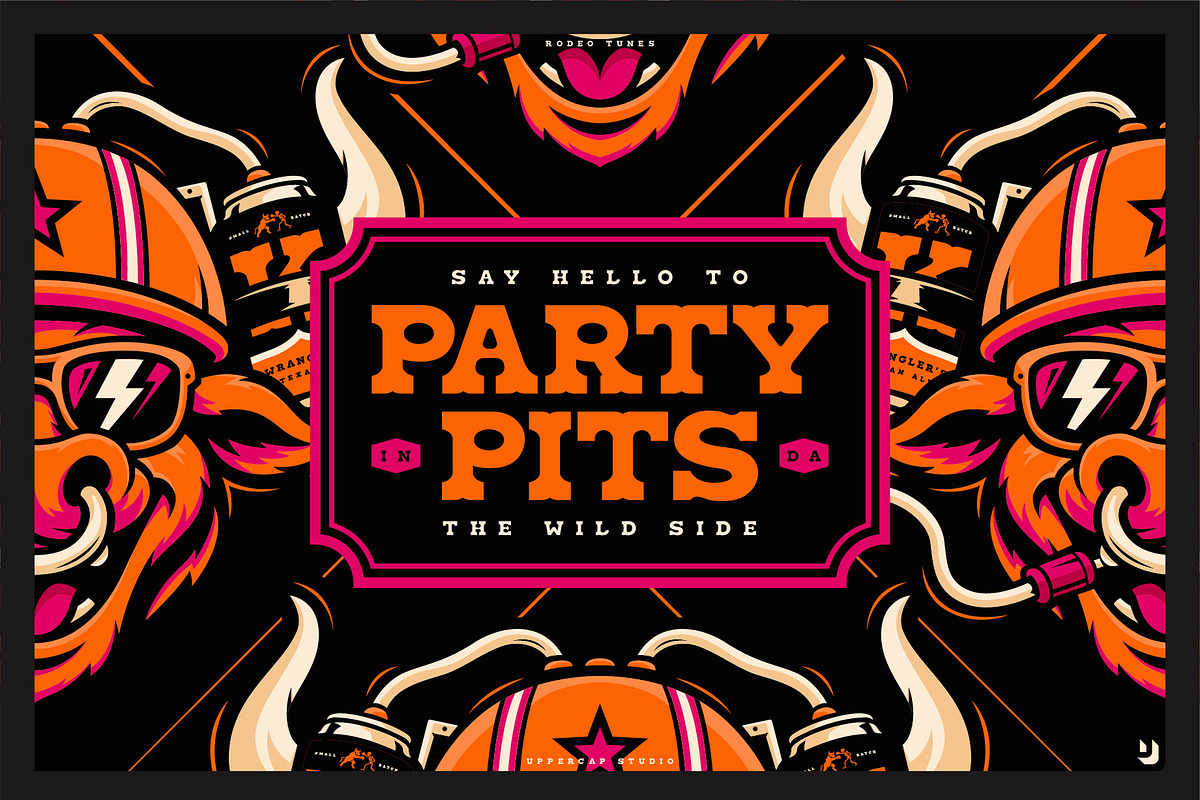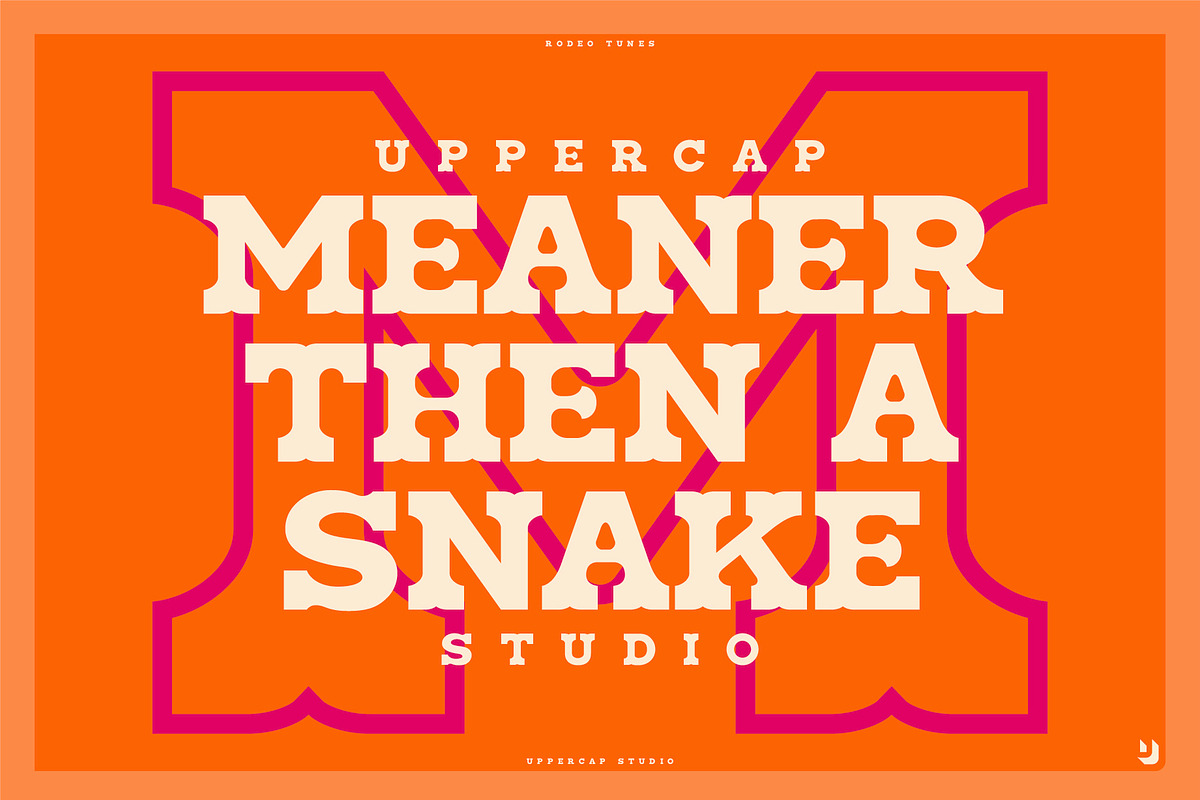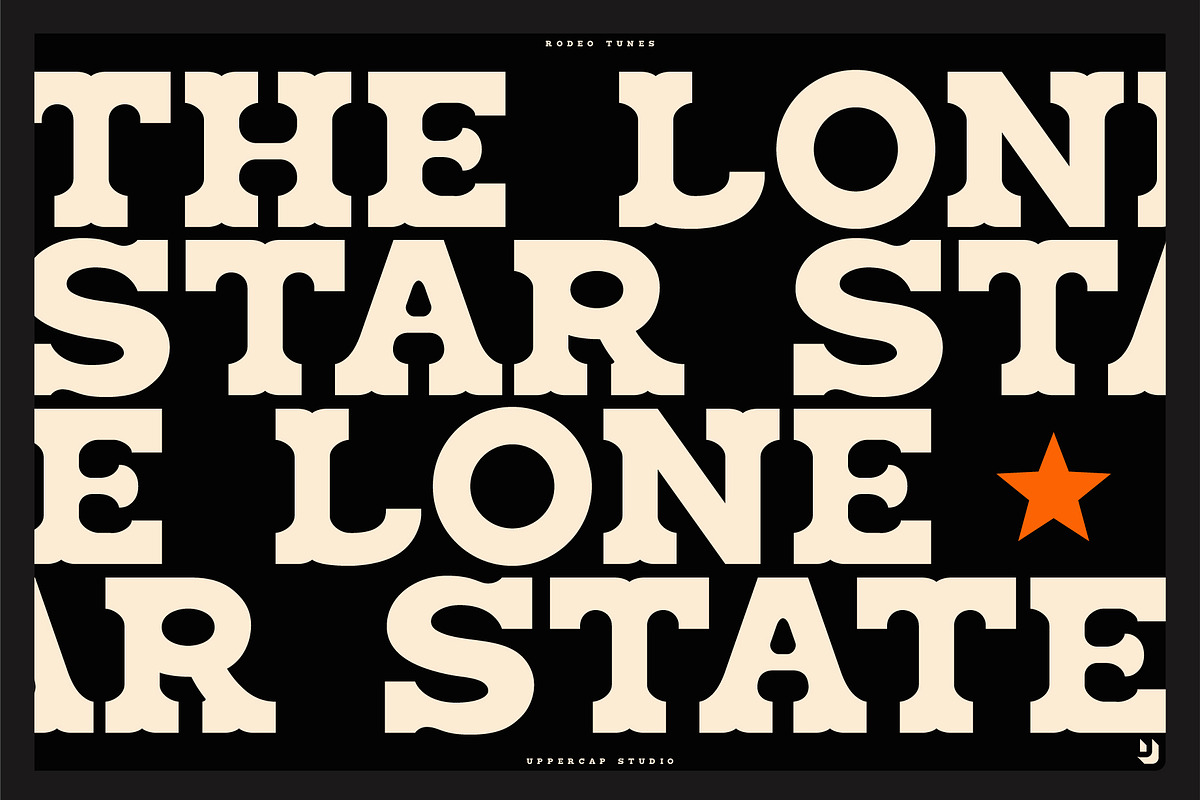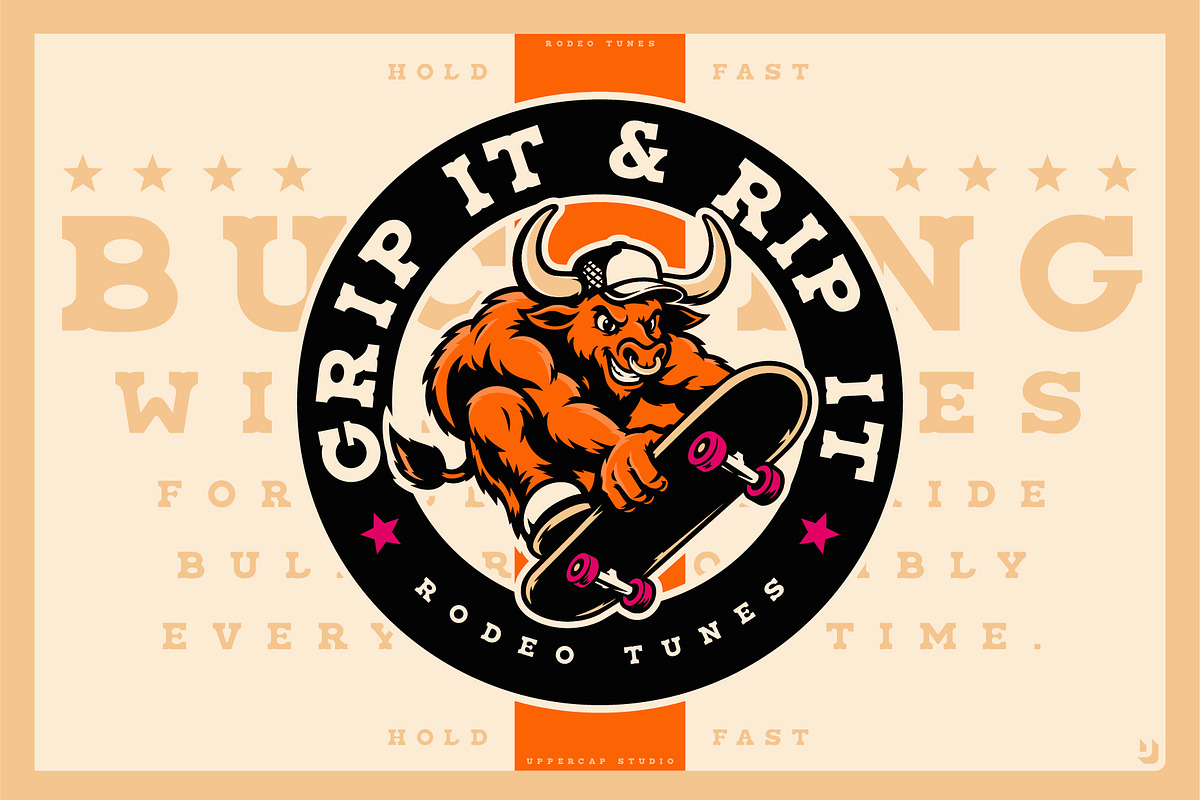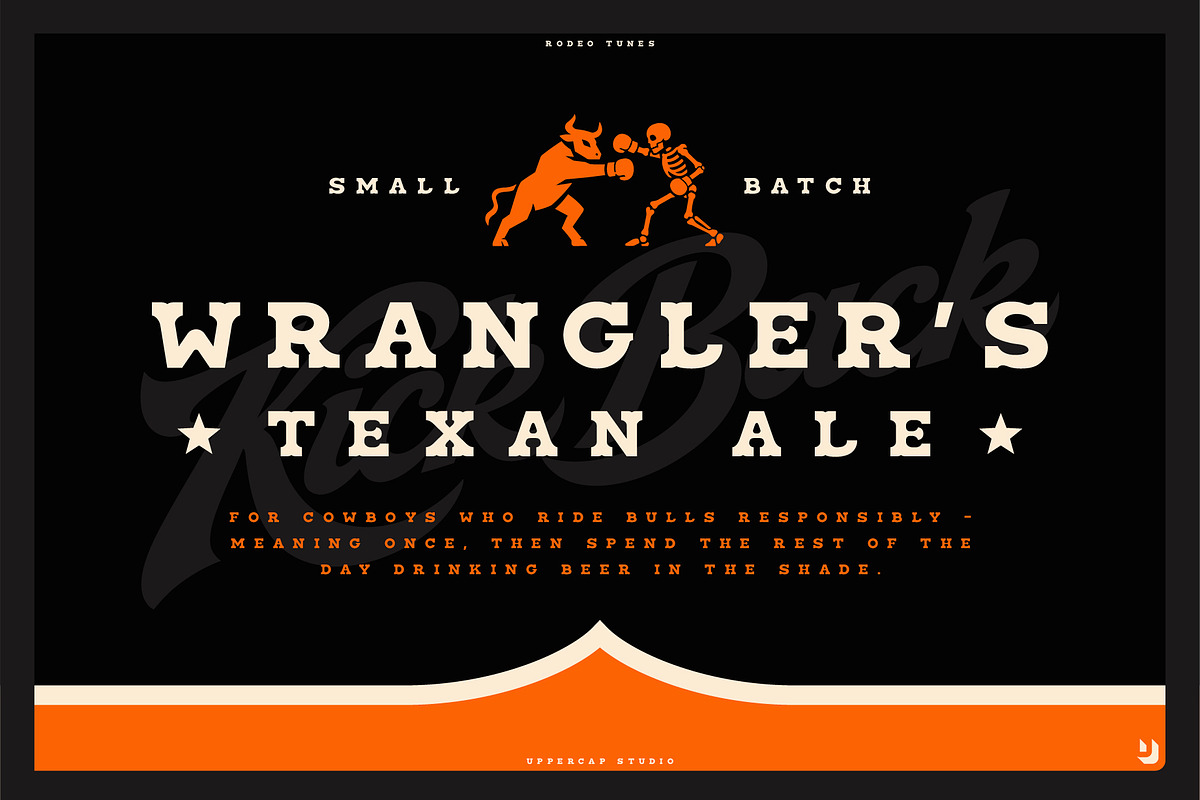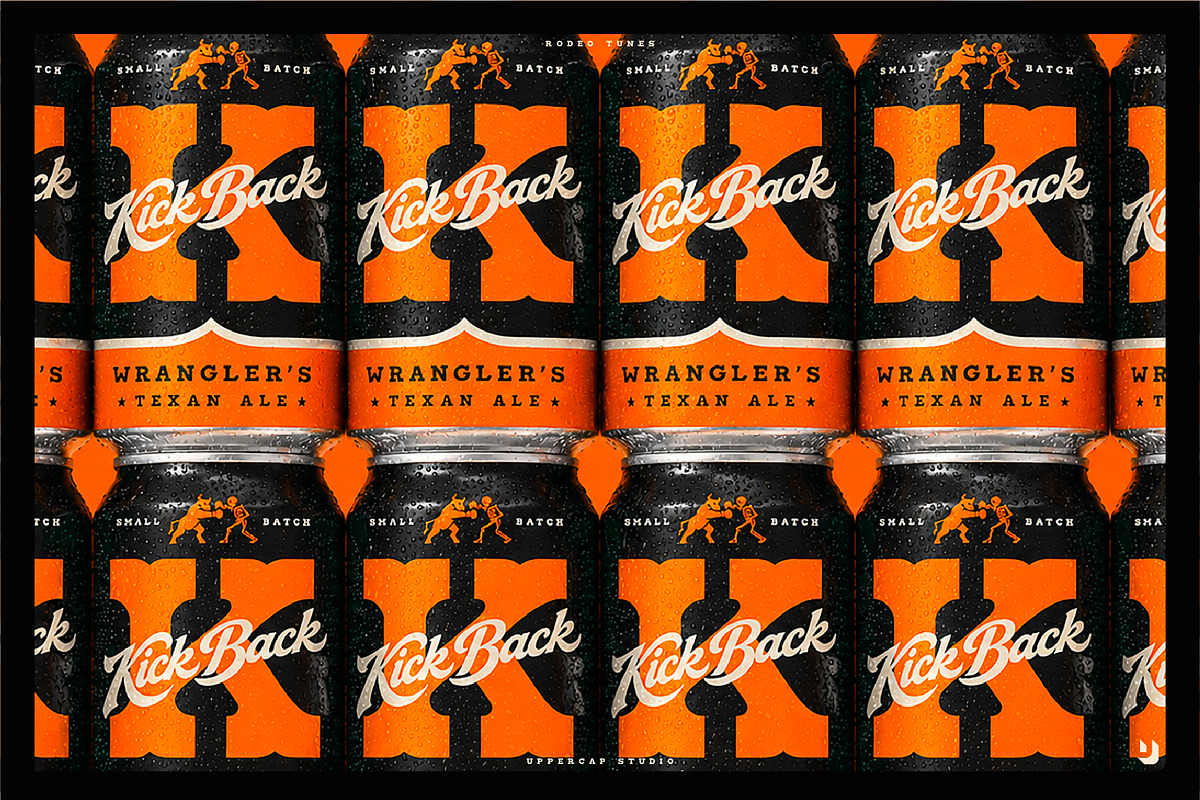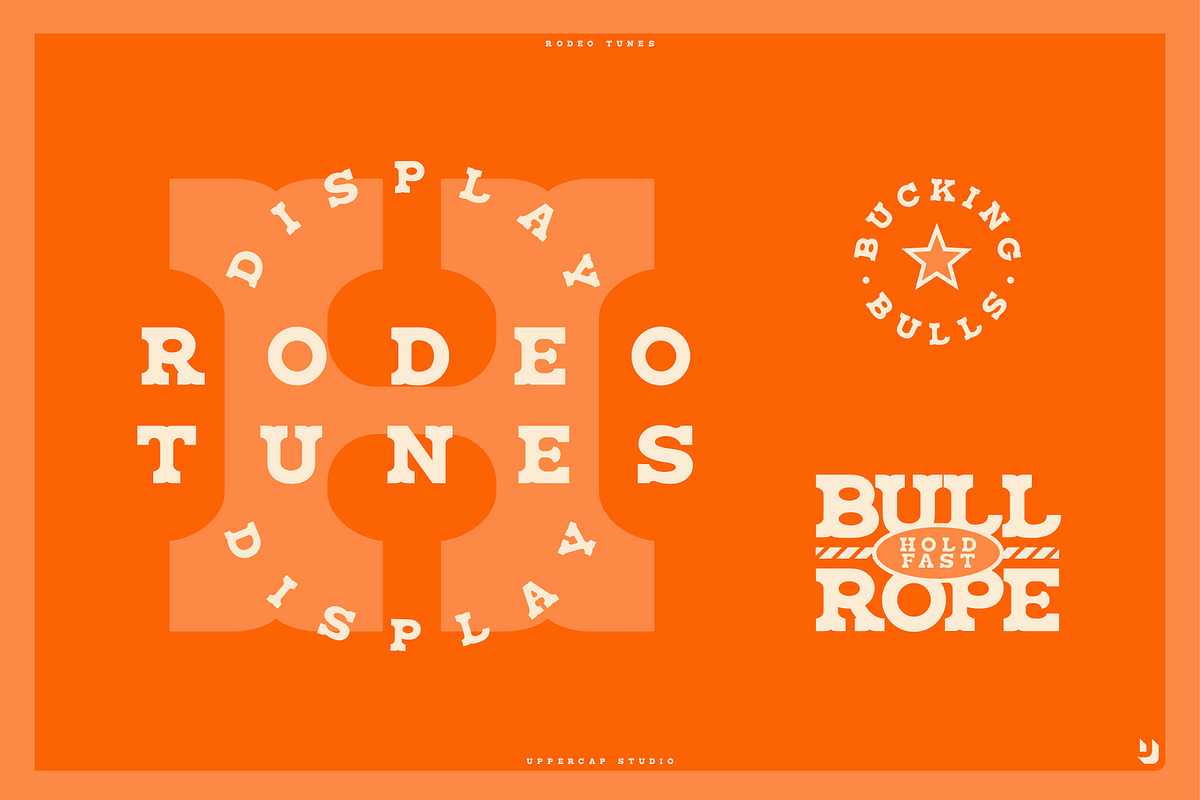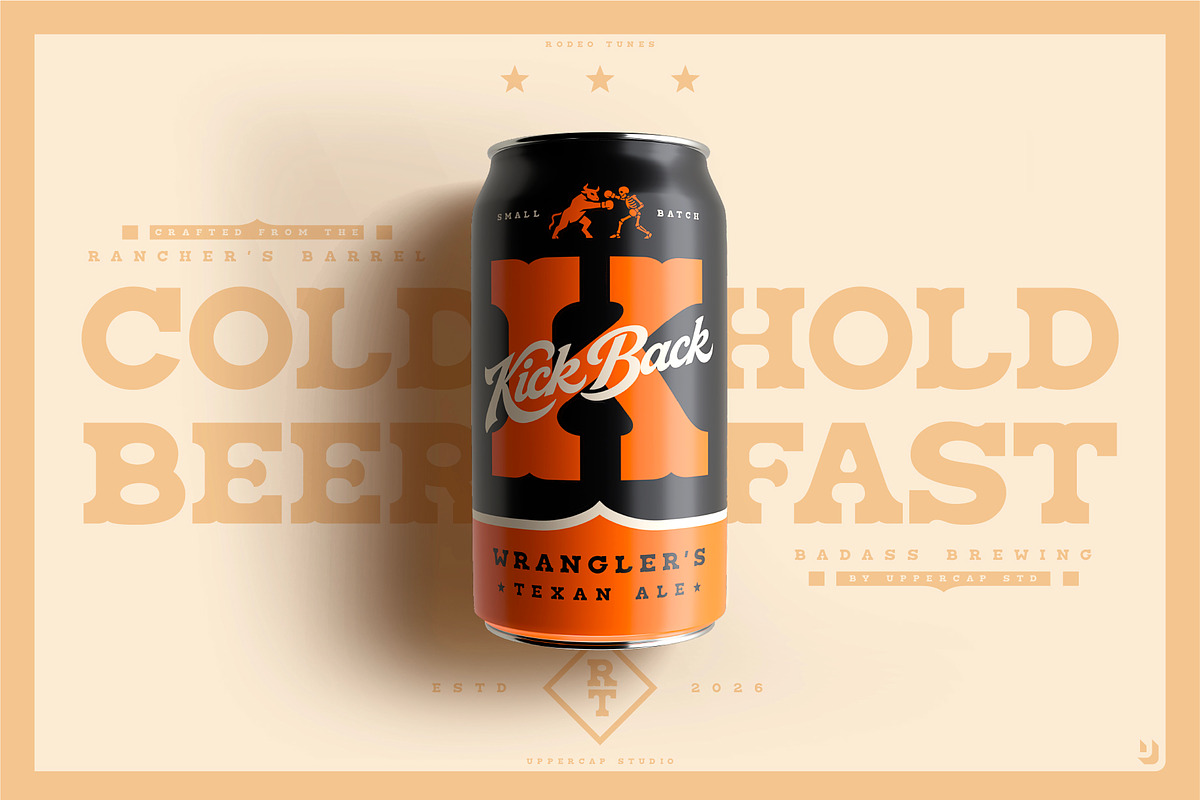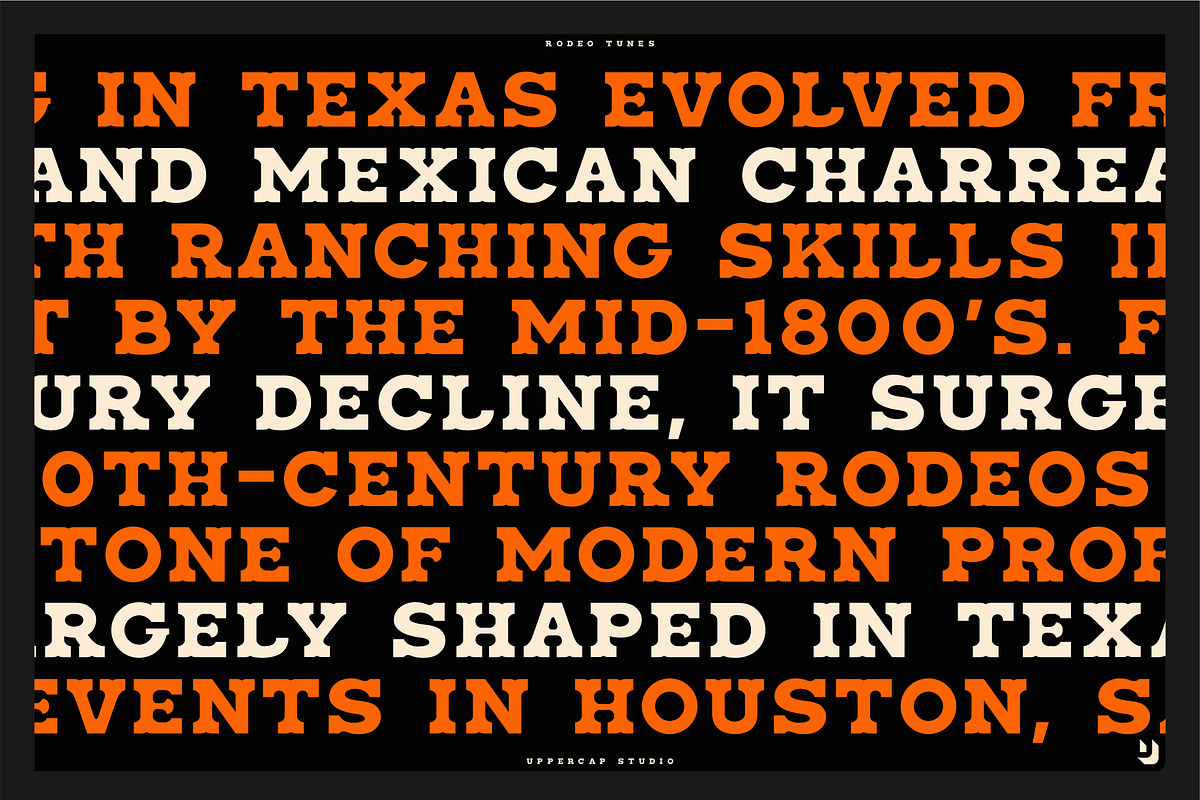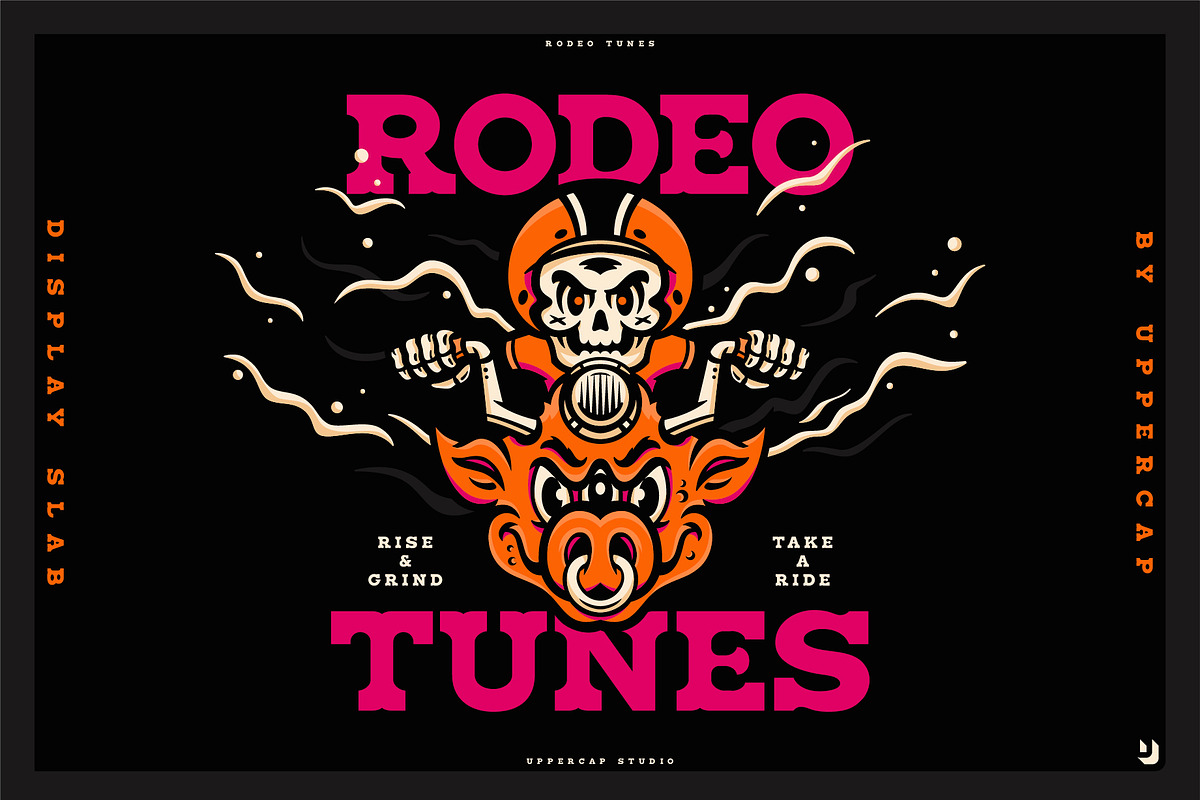
Rodeo Tunes - Western Slab Serif
Rodeo Tunes is a bold, hand-drawn Western slab serif packed with vintage attitude. Inspired by classic rodeo posters, honky-tonk signage, old saloons, and Americana typography, it delivers a rugged character with a modern, playful edge.
Every letter has been carefully crafted by hand, giving the font an authentic, imperfect feel that's full of personality. Its chunky slab serifs, confident curves, and sturdy proportions make it perfect for designs that need to stand out.
Whether you're creating branding, packaging, posters, apparel, album artwork, logos, or social media graphics, Rodeo Tunes brings unmistakable Western charm without feeling dated.
Western & Americana branding
Vintage packaging
Logos & wordmarks
Posters & event graphics
Apparel & merchandise
Beverage labels
Music artwork